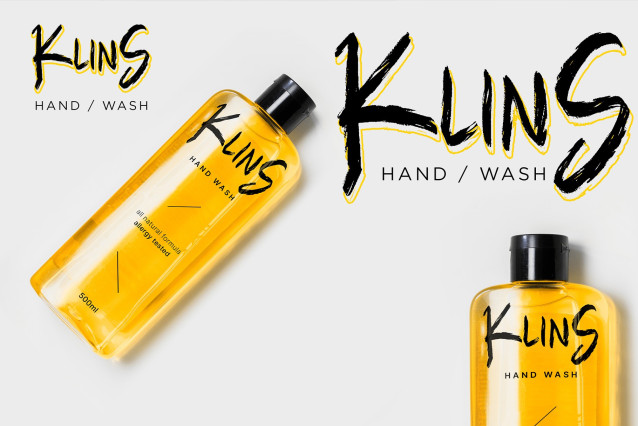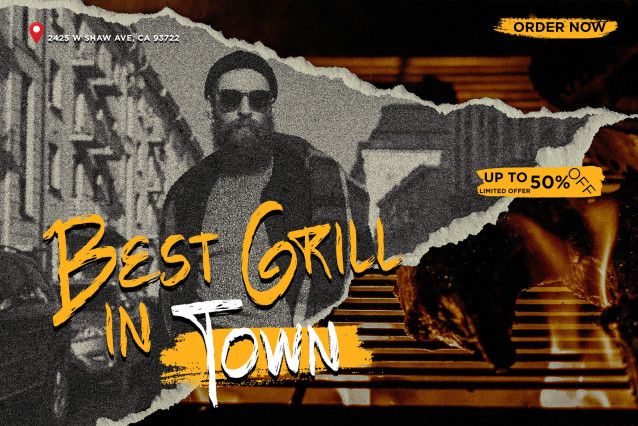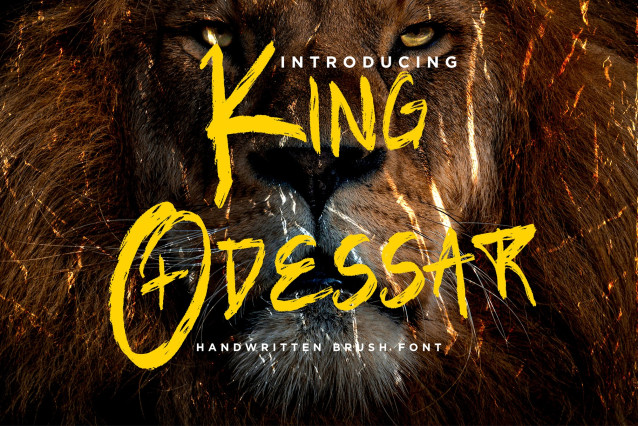
King Odessar Font
King Odessar Font is a commanding handwriting brush font that brings bold energy and artistic flair to your designs. With rugged brush strokes and dynamic movement, this font is perfect for those looking to make a statement. Whether you’re designing logos, posters, apparel, or social media graphics, King Odessar adds confidence and personality to every project.